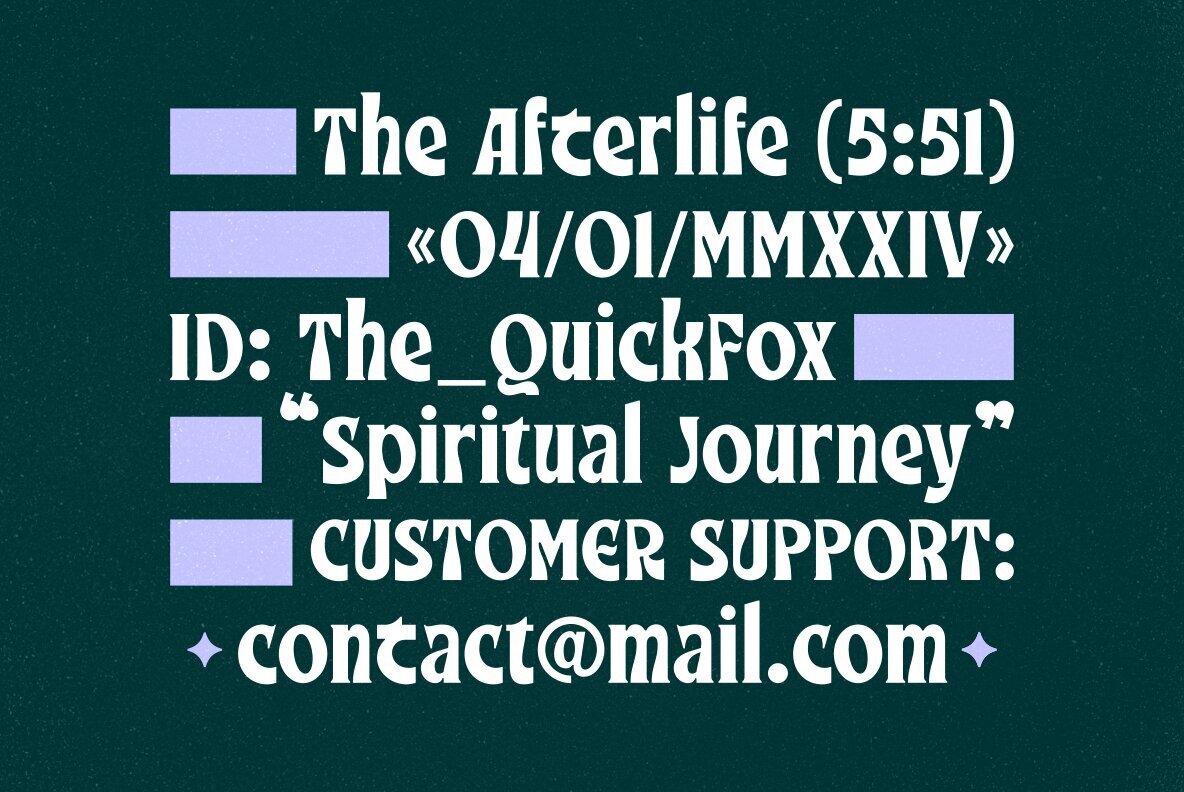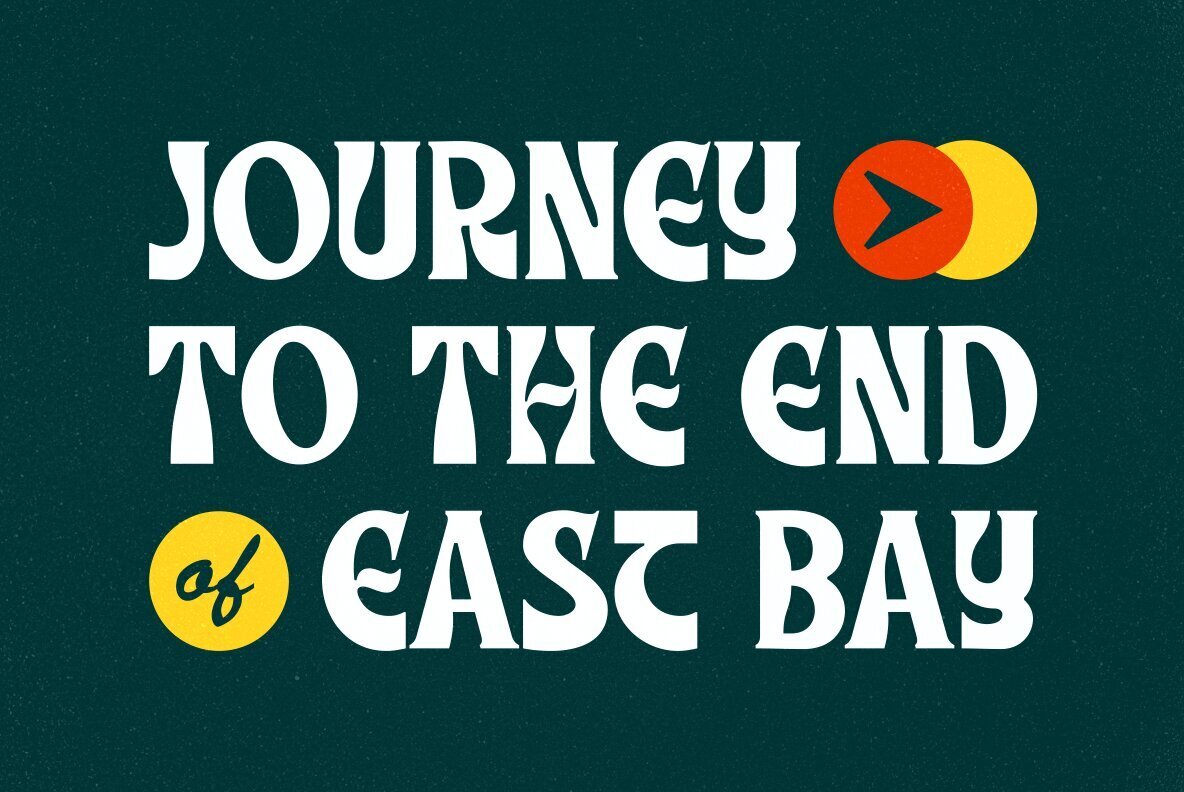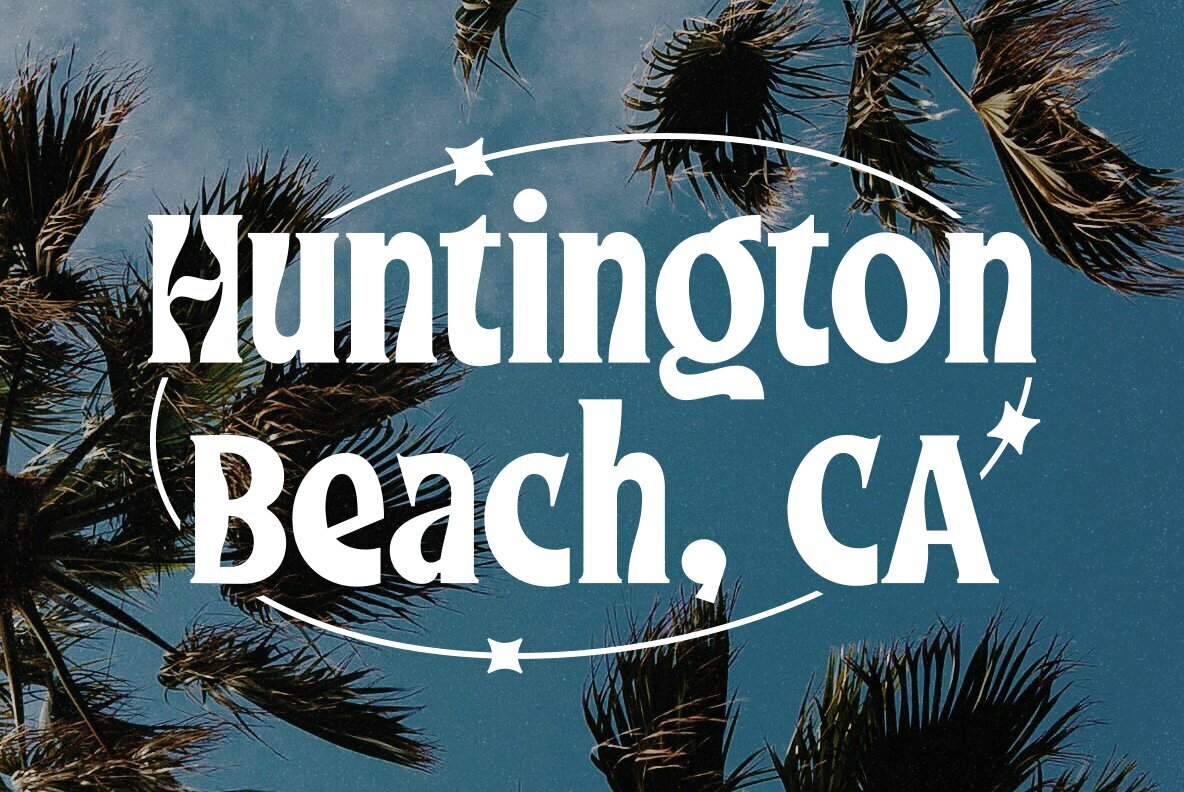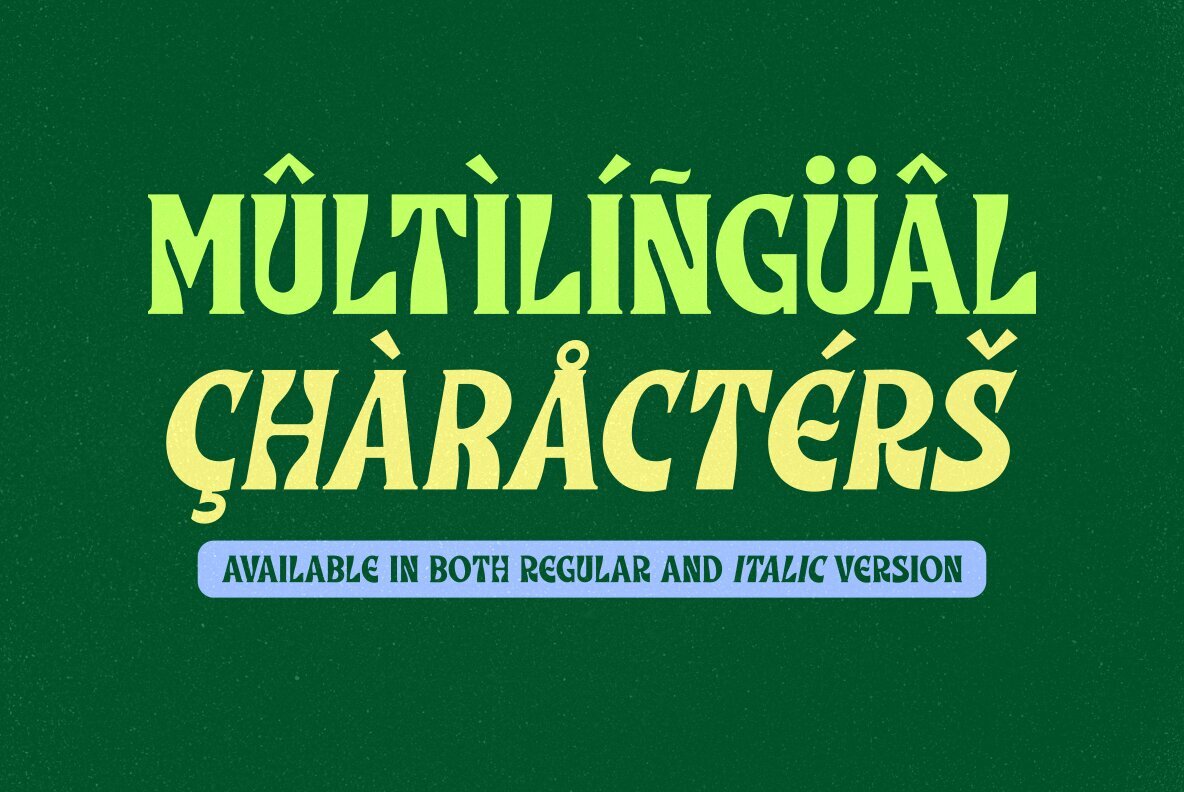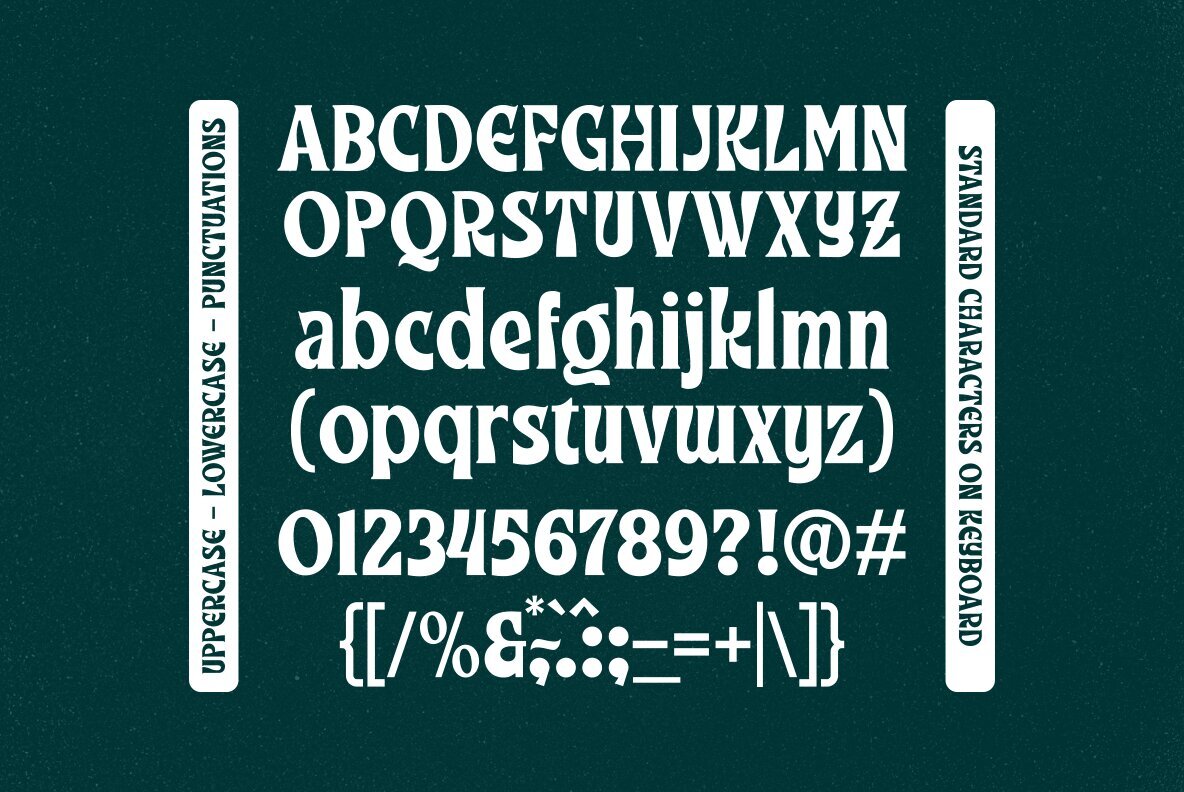
Klayfish Font
Klayfish Regular
Klayfish Italic
Klayfish is an experimental typeface that transforms the traditional serif into a funky and trendy font. Digitally crafted with precision, its smooth lines and curves bring a modern touch to any design. Ideal for logo and branding projects, headlines, apparel, posters, and text-based designs.Klayfish: A Trendy Twist on Classic Serif